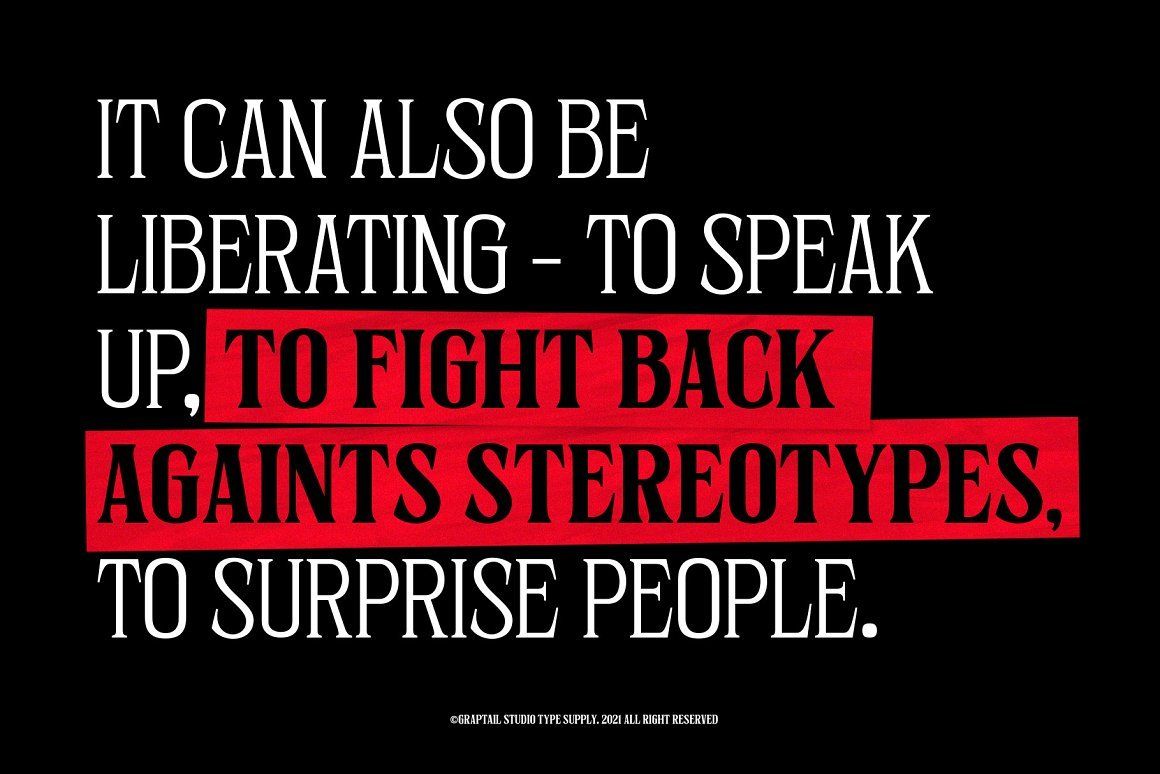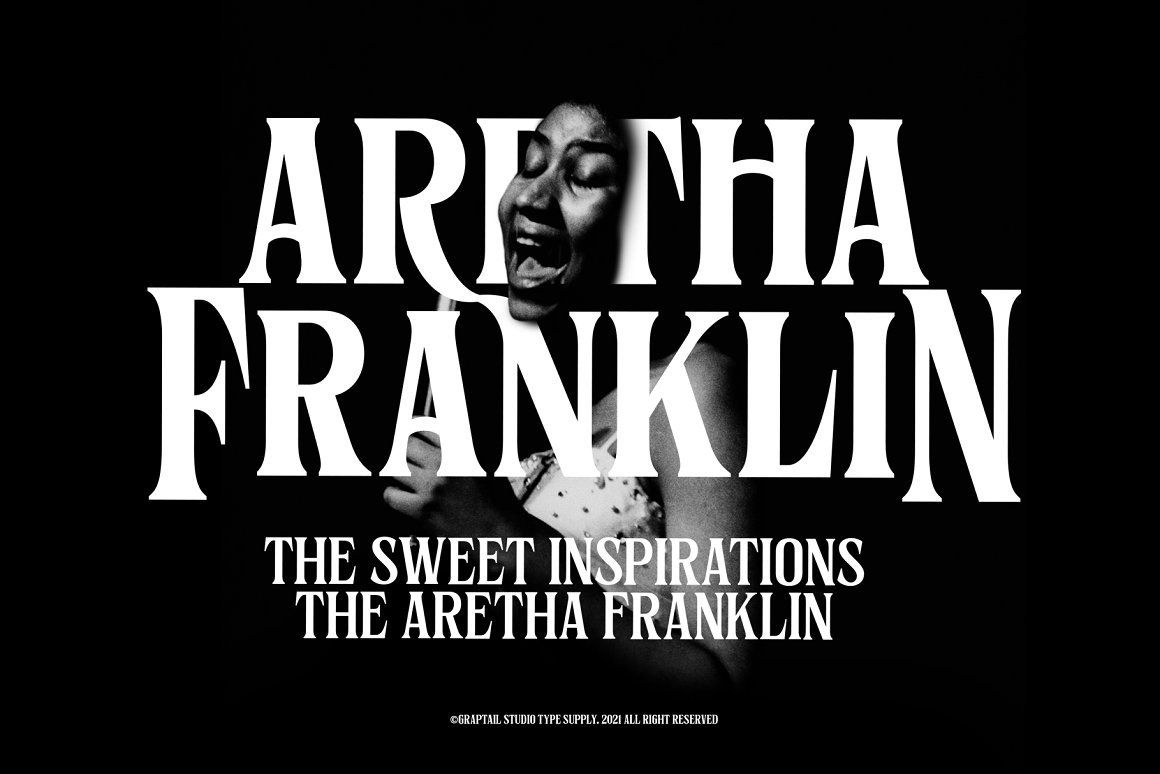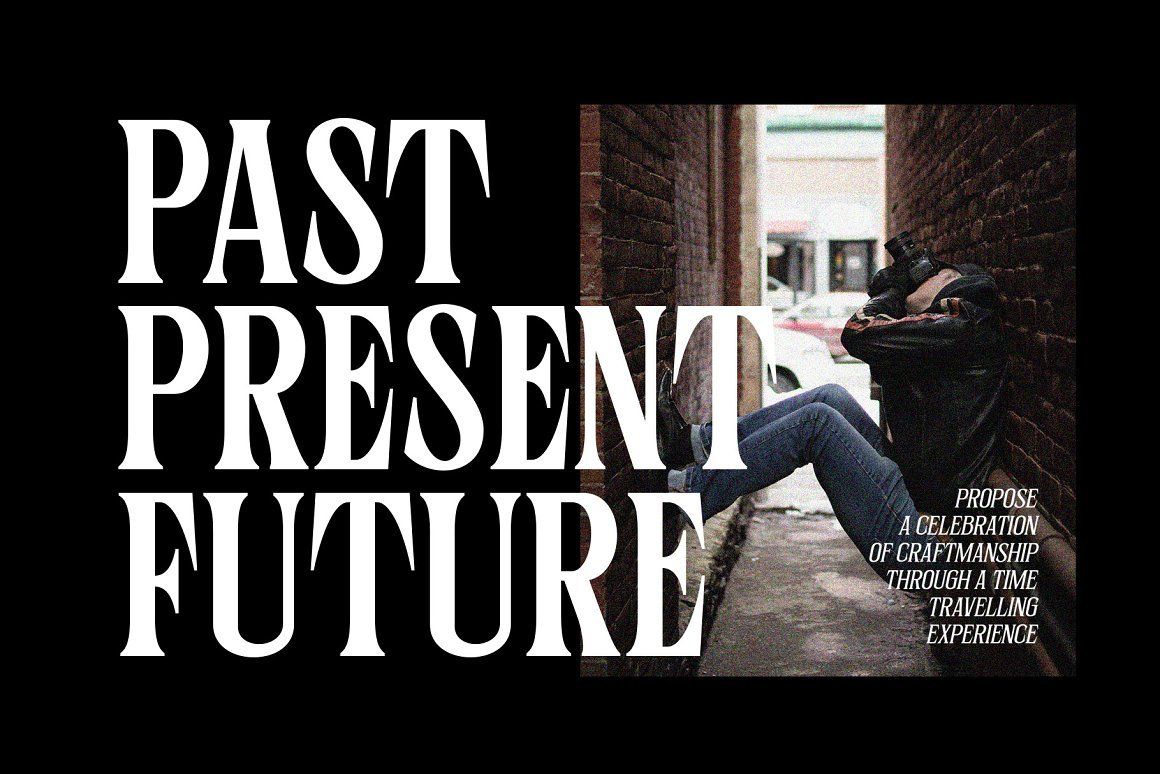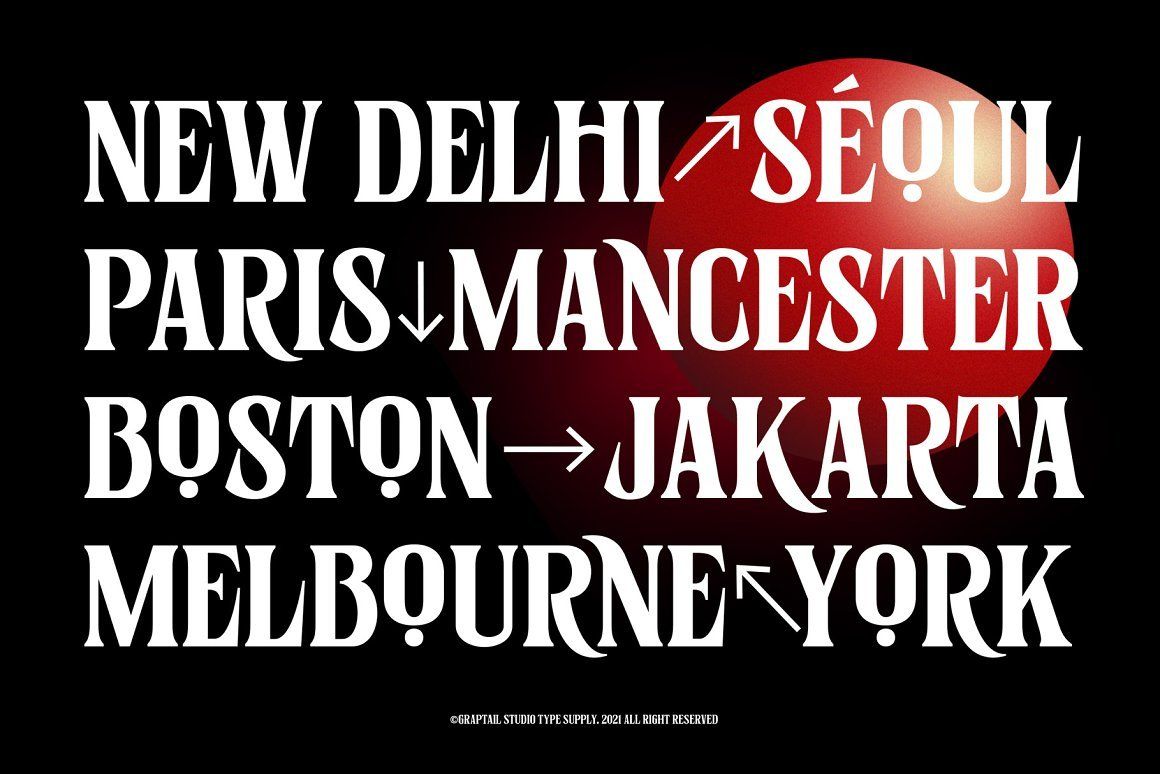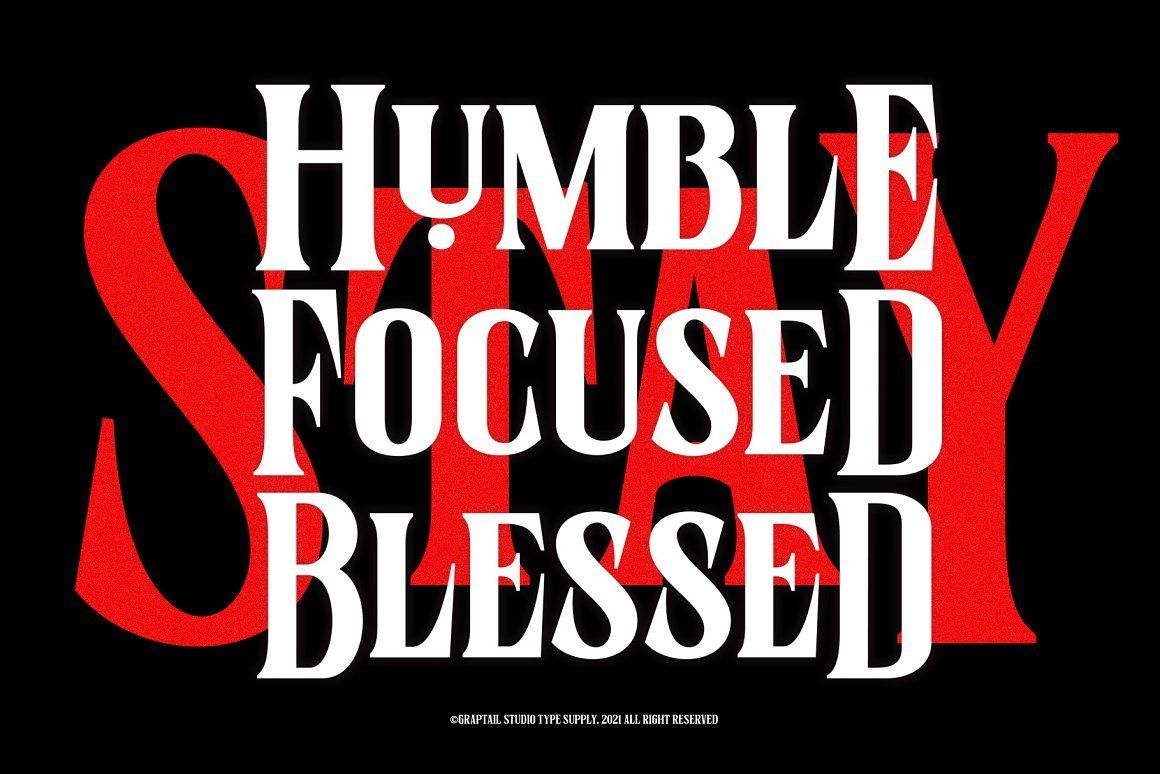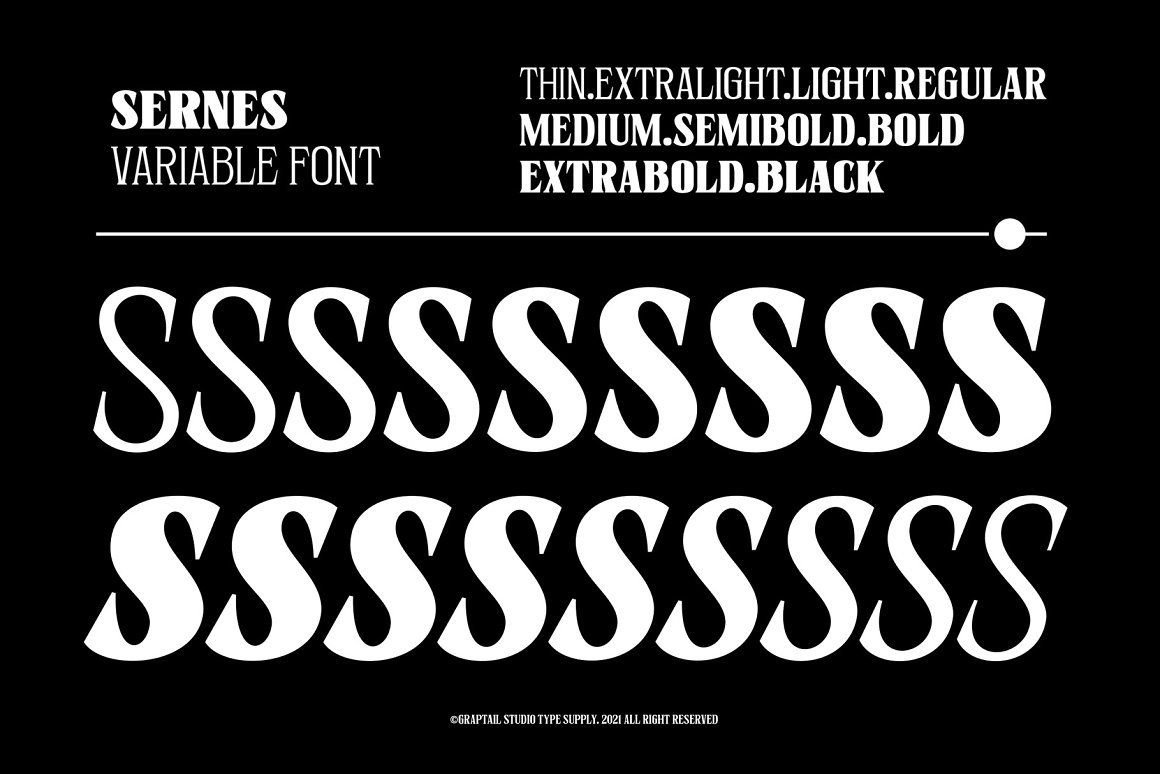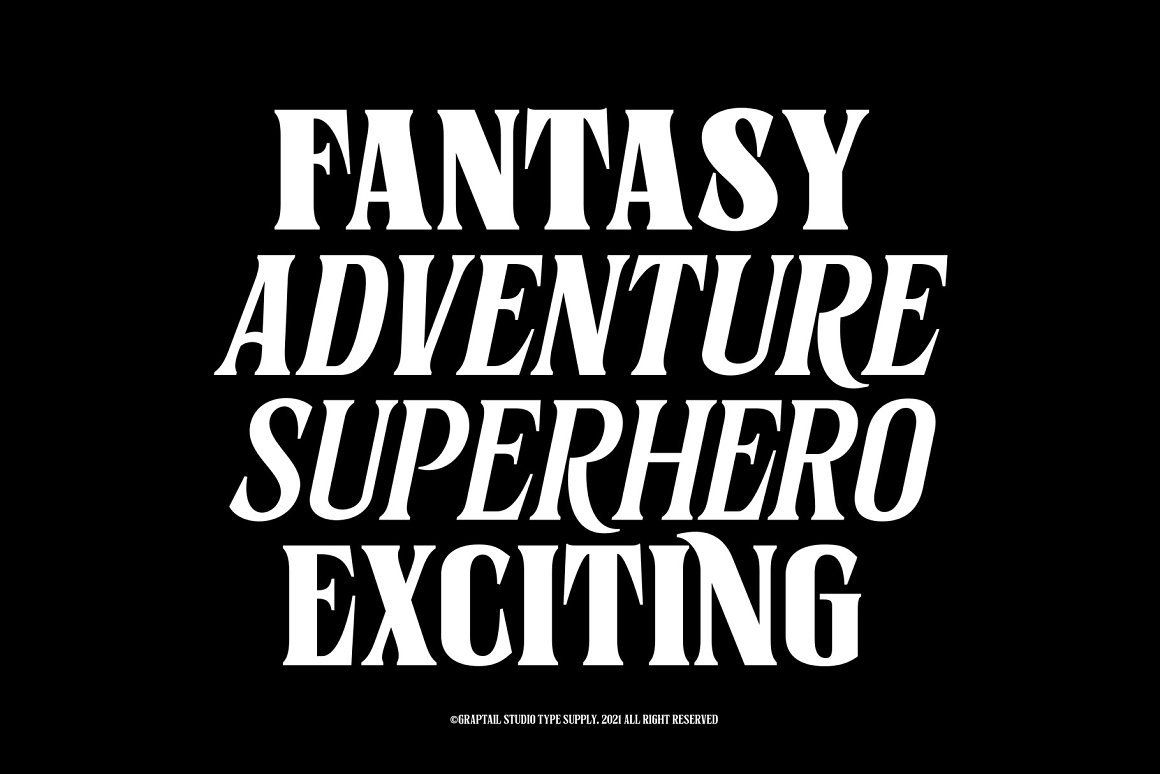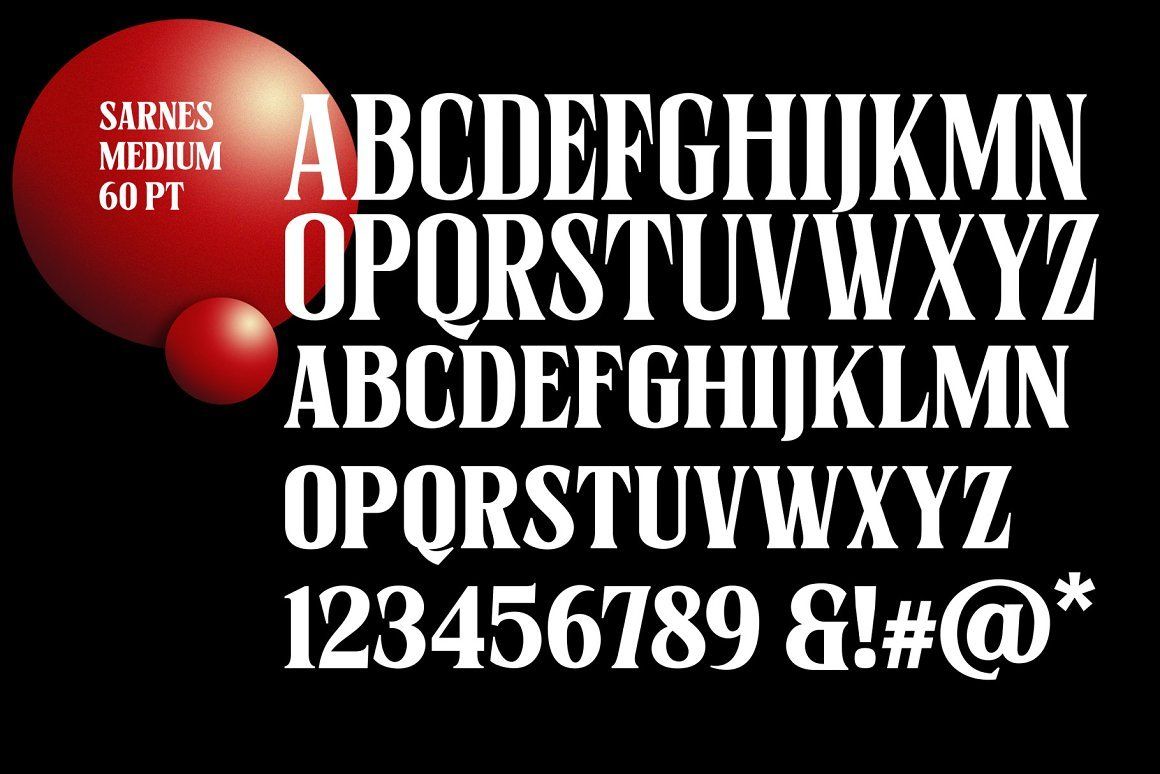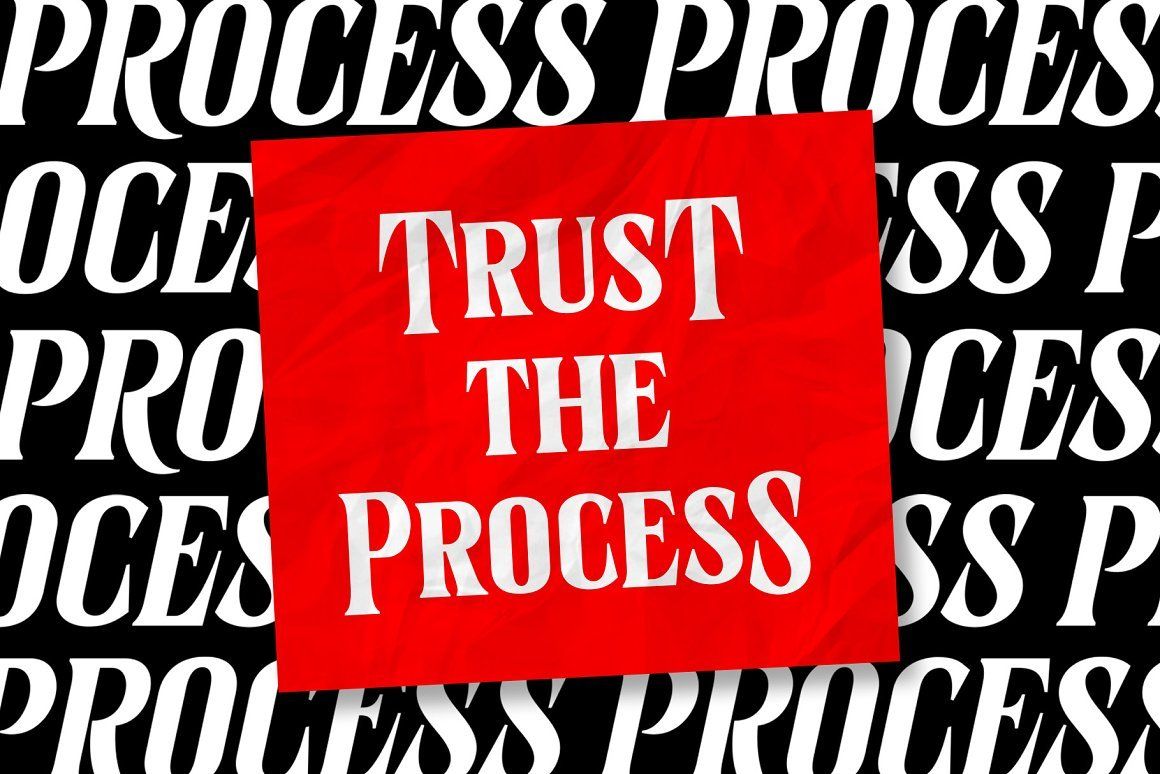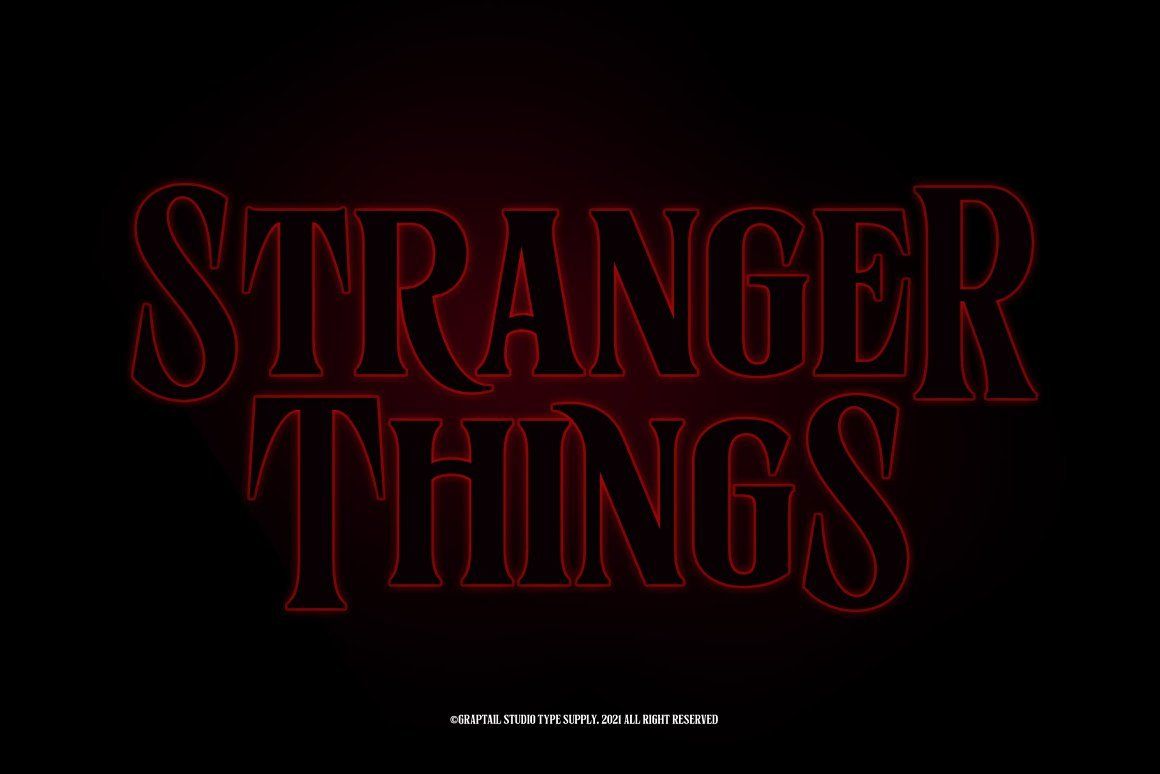
Sernes was inspired by the letterforms in the film series "stranger things" with condensed letters.comes with 18 weights which includes display, alternate and italic.